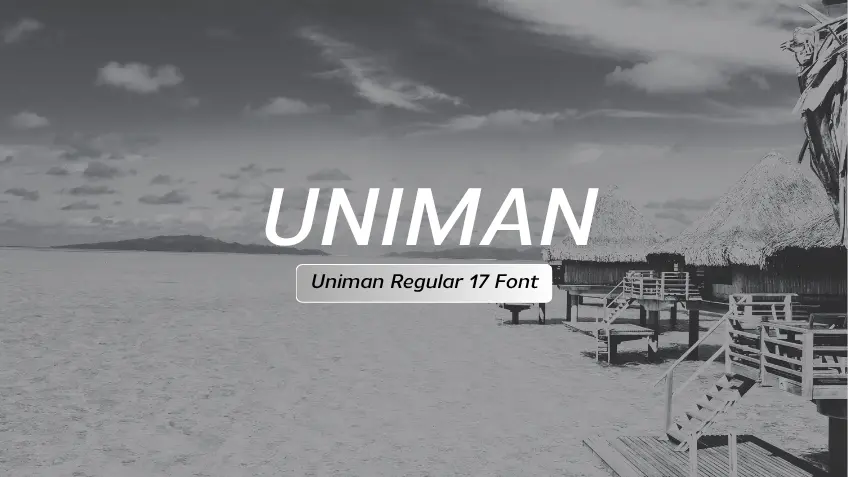
Uniman Regular 17
Uniman Regular 17 Font
The font Uniman Regular 17, designed by Jonathan Hill, falls under the Sans Serif category & Uniman font family. Its smooth, flowing letterforms make it a versatile choice for projects that require both elegance and readability. Uniman is particularly well-suited for Editorial Design, User Interfaces (UI) and Web Design, Corporate and Brand Identity: and Packaging and Signage. With its balance of simplicity and decorative appeal, this font brings a polished touch to both personal and professional designs.